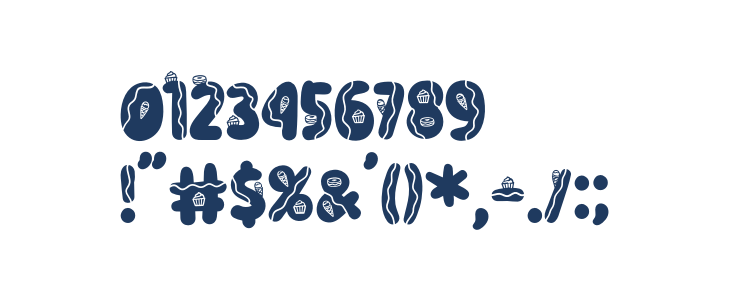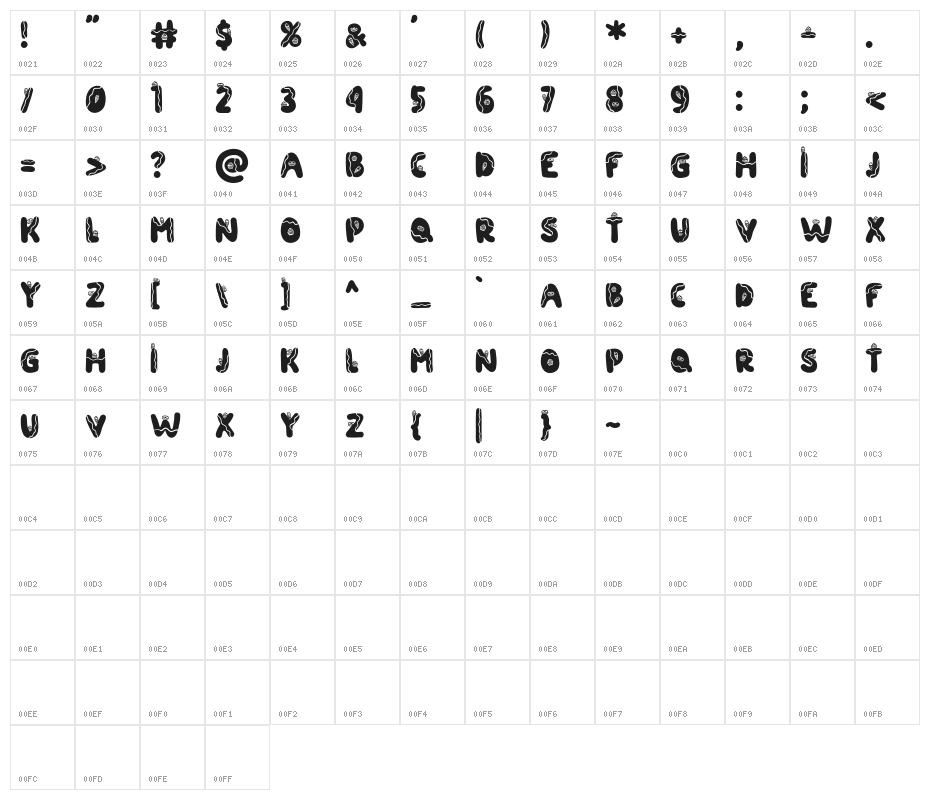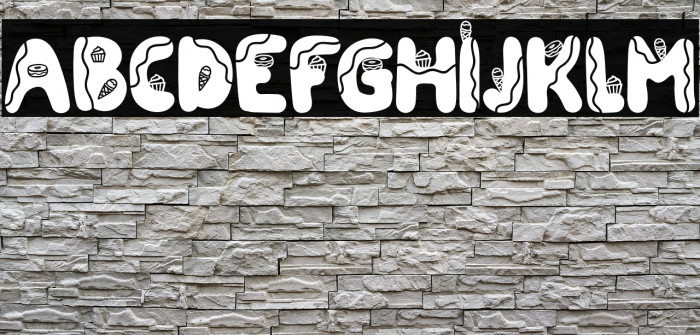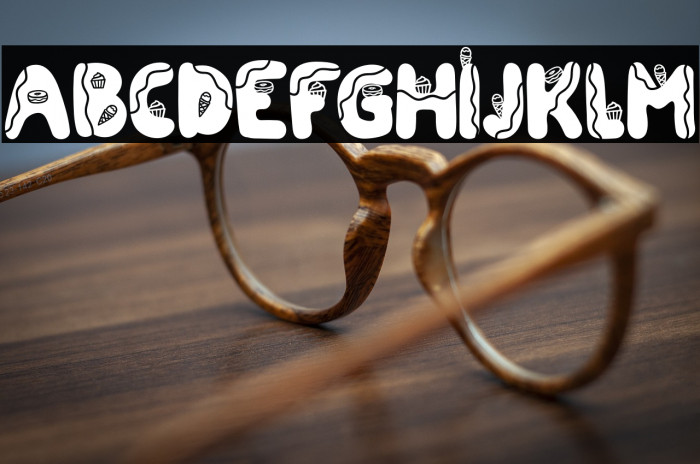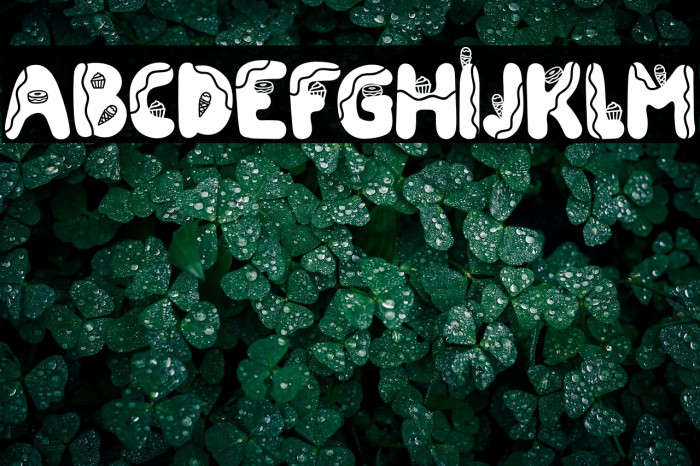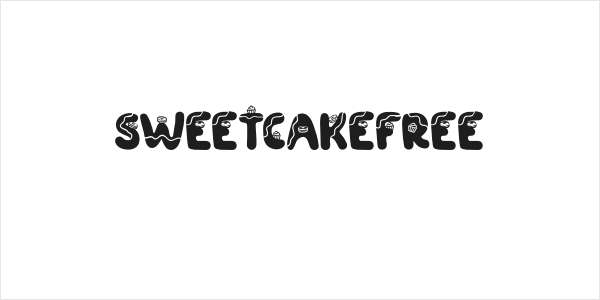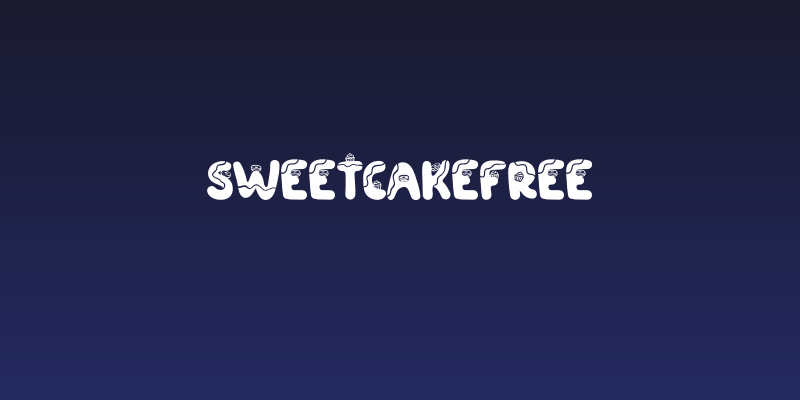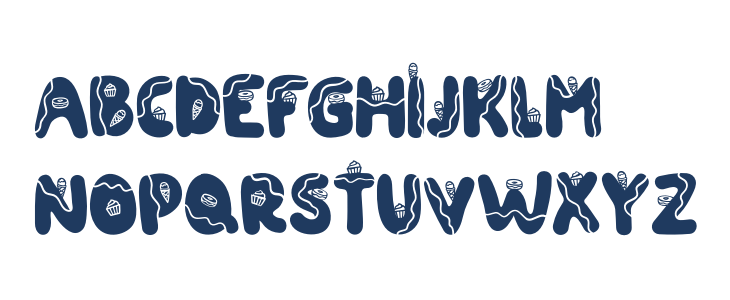
SWEETCAKEFREE Font
SWEETCAKEFREE Description
This playful and whimsical font features bold, rounded characters that are adorned with delightful cupcake illustrations. Each letter and number is creatively integrated with dessert-themed elements, giving it a unique and fun appearance. The font is designed to capture attention with its decorative style, making it ideal for projects that require a touch of sweetness and creativity. The characters are evenly spaced, ensuring readability while maintaining their quirky charm. The overall design is perfect for conveying a sense of joy and celebration.
| Proposed Projects | Ideal for children's party invitations, bakery branding, playful posters, and any project needing a fun, whimsical touch. |